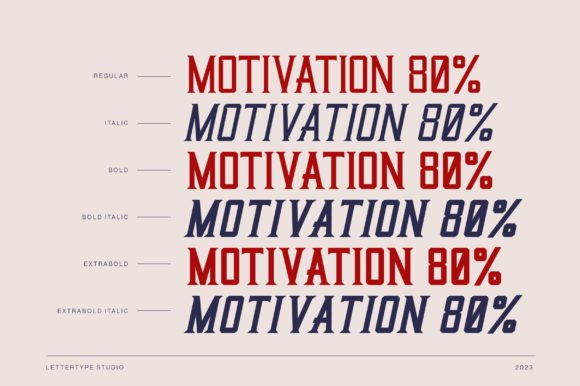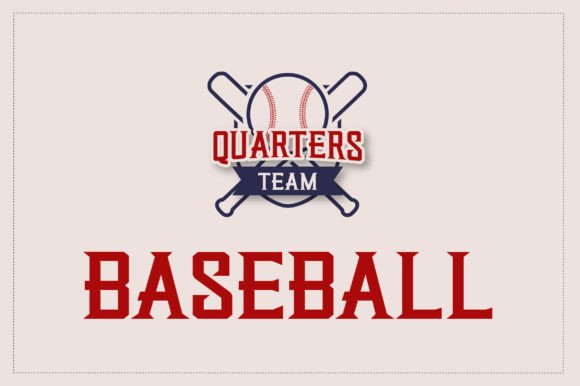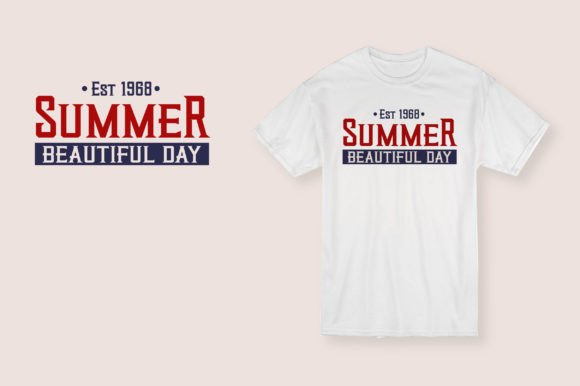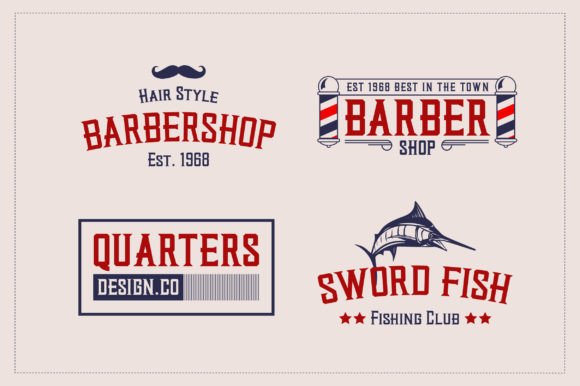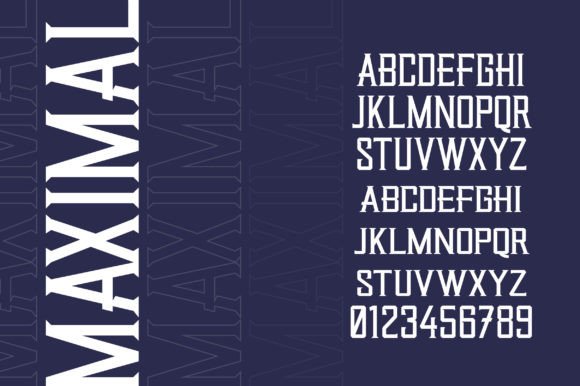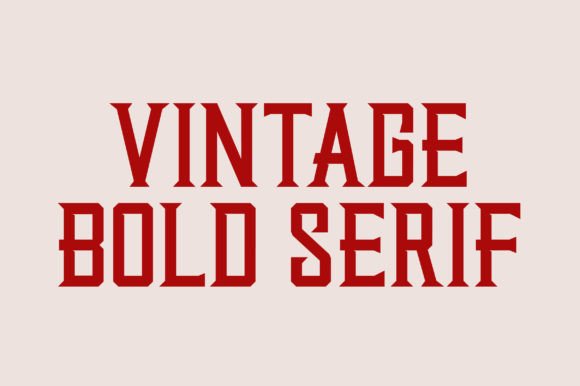
Introduction to Quarters Font
Quarters is a vintage bold serif font inspired by urban culture with strong characters.
Welcome to the new bold world serif characters, that fonts will help for any of your projects This font will be perfect for your logo design, branding, clothing, sports graphics, posters, editorial titles, headlines, etc.
Key Features of Quarters Font